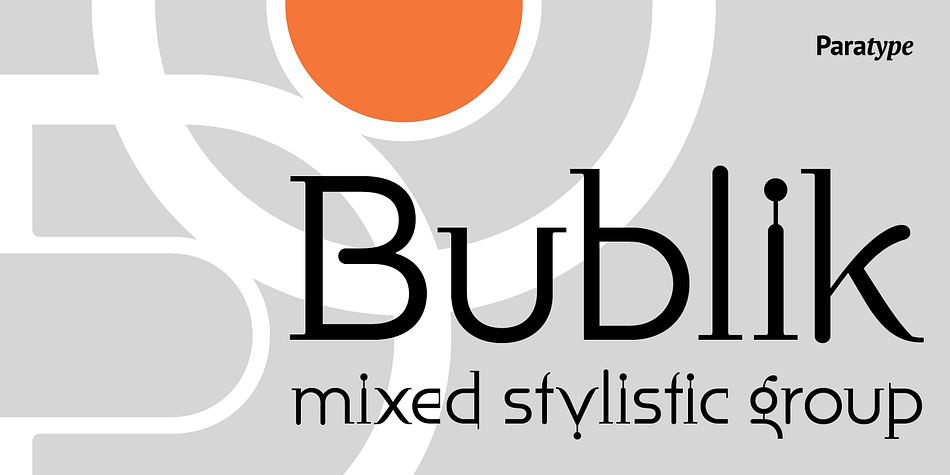
Bublik
Designed by Oleg Karpinsky, Bublik is a display and arts and crafts font family. This typeface has three styles and was published by ParaType.
One weight of Bublik was designed in 2004 by Oleg Karpinsky exclusively for ParaType. The typeface belongs to the mixed stylistic group and combines features of sans serif and serif typefaces. Letterforms of capitals Н, У, Ч, as well as lower case щ were inspired by antique Russian typefaces. Lower case г with ascender and descender was often used in Cyrillic typefaces and scripts of XV-XVIII centuries, especially in skoropis (handwriting). For use in advertising and display typography. Bublik was selected by the jury of TDC2 2005 annual type design competition (New York, 2005). In 2008 the author added two weights (Bold and Black) and improved letterforms of some characters.